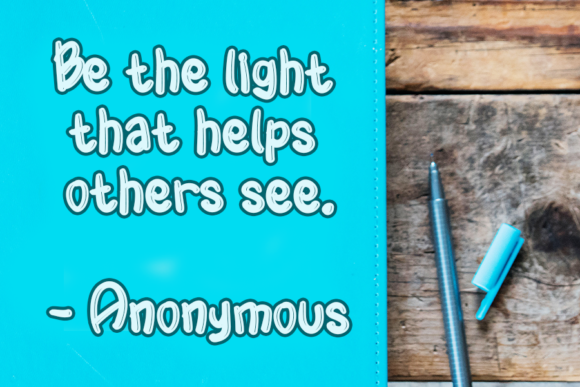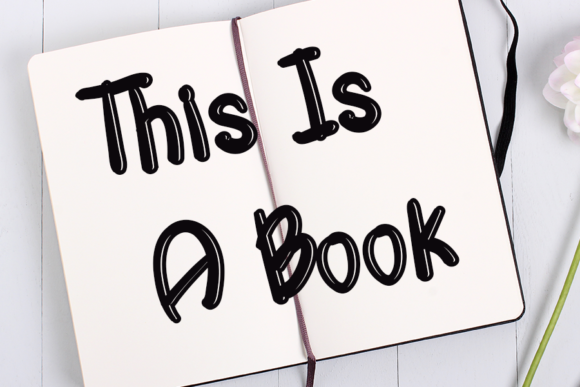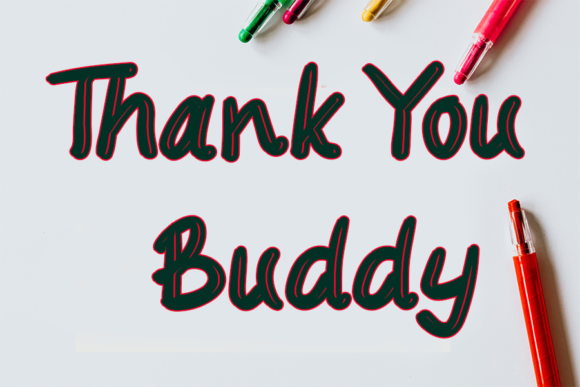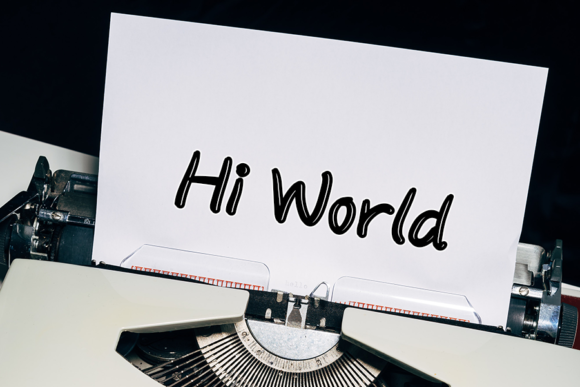
Introduction to Light House Font
Light House is a 3D display font that has both a natural and unique style making it incredibly fitting to a large pool of designs.
Key Features of Light House Font